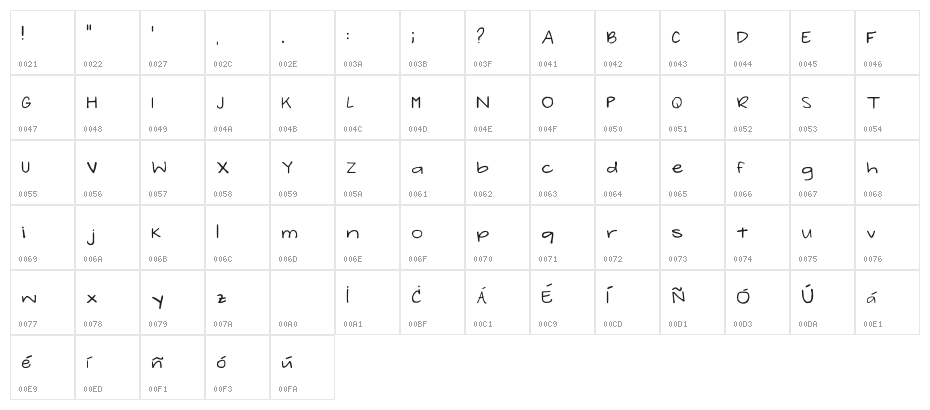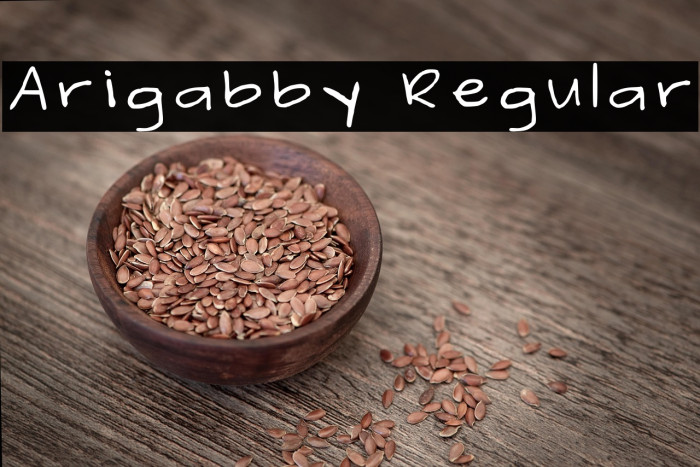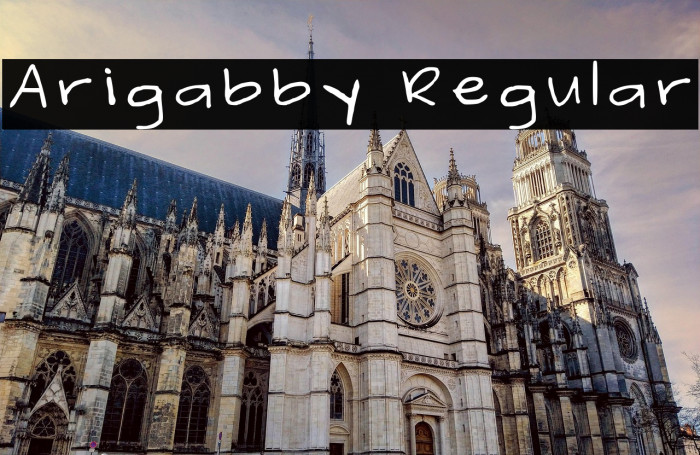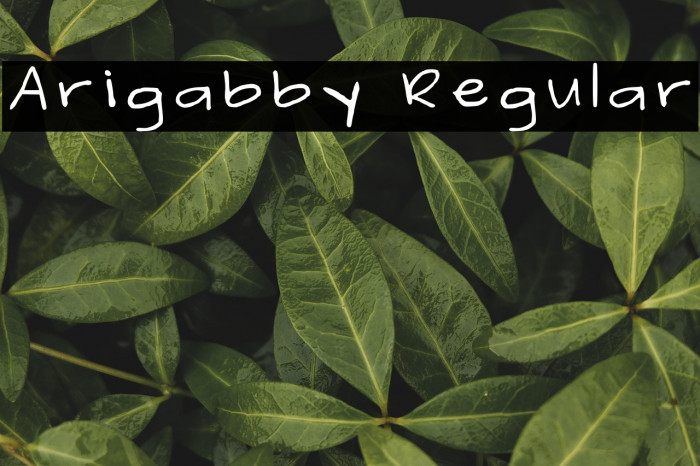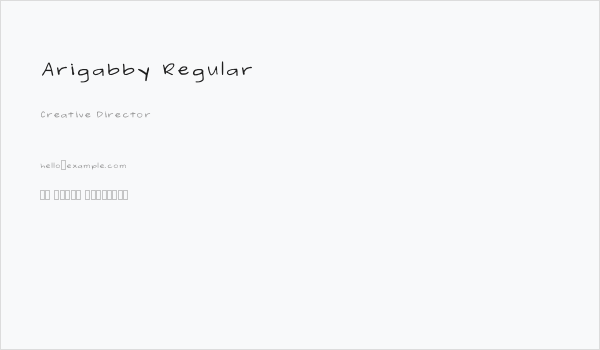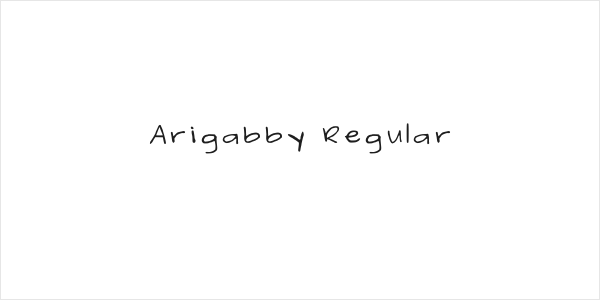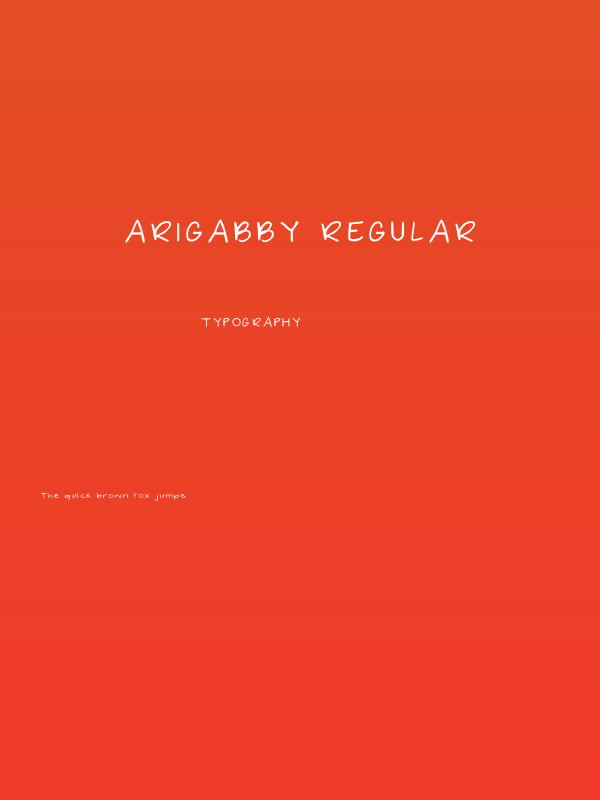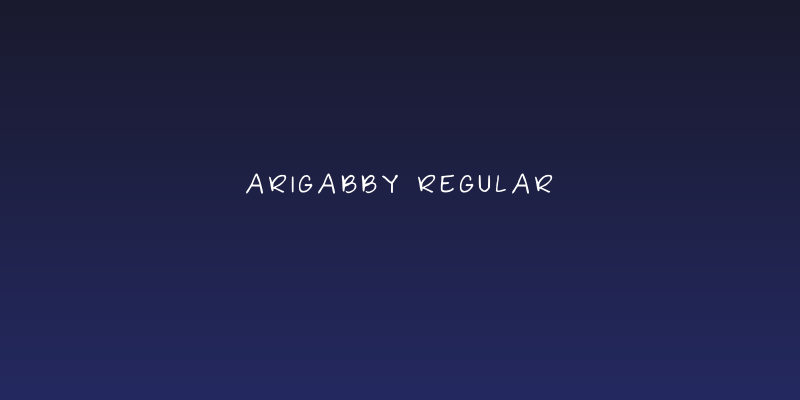
Arigabby Regular Font
Arigabby Regular Description
A playful, handwritten-style font with irregular, rounded letterforms and a casual, informal appearance. The strokes are consistent in thickness, and the characters have a friendly, approachable feel.
| Overall Style | Playful, Informal, Handwritten |
| Use Case | Headlines, Short text, Logos, Informal notes |
| Proposed Projects | ChildrenΓ’β¬β’s books, greeting cards, informal invitations, educational materials, playful branding. |